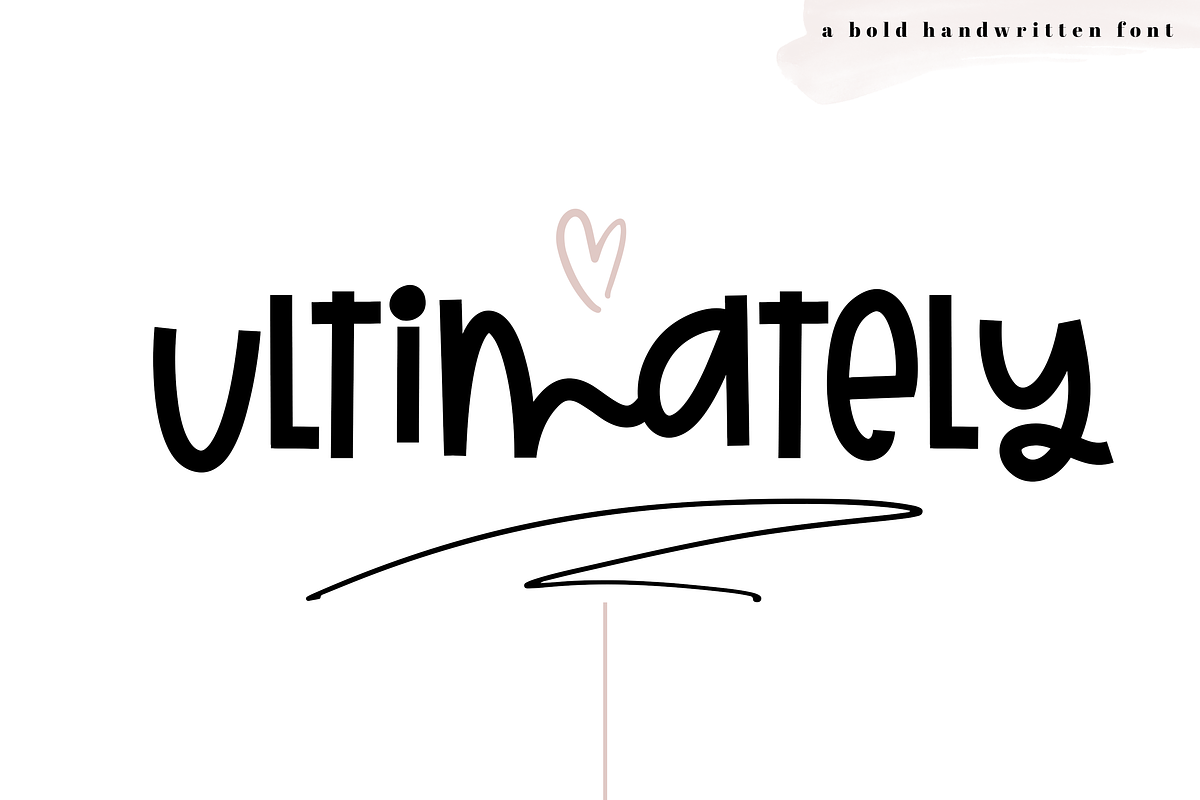
Ultimately - A Bold Handwritten Font Free Download is a striking and expressive typeface designed to make a bold statement. With its thick, fluid strokes and unique handwritten style, Ultimately is perfect for logos, posters, branding, social media content, and any project that needs a personal, yet impactful, touch.
The bold and playful character of this font gives your designs energy and personality while maintaining readability. Ultimately includes uppercase and lowercase letters, punctuation, multilingual support, and works seamlessly on both Mac and Windows systems.